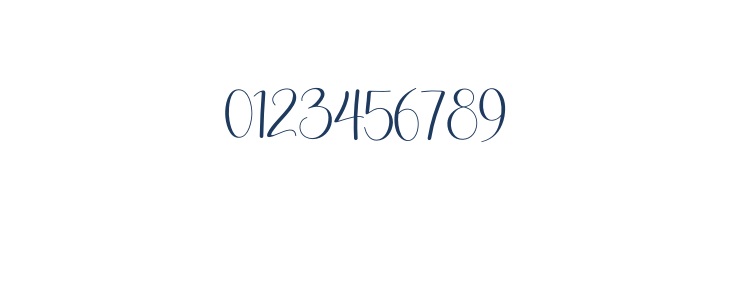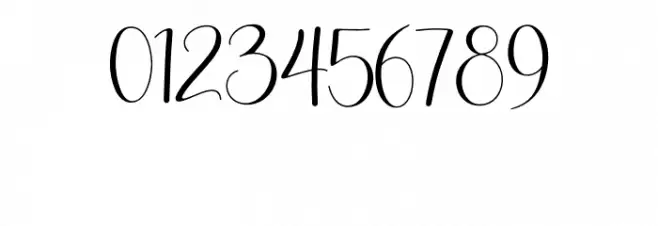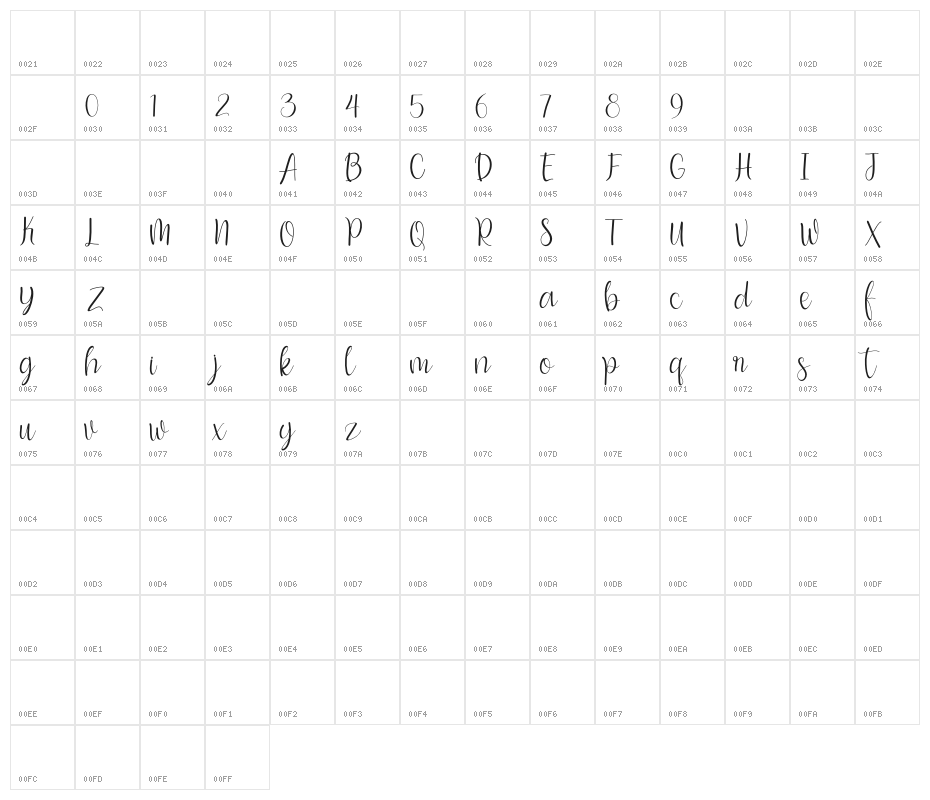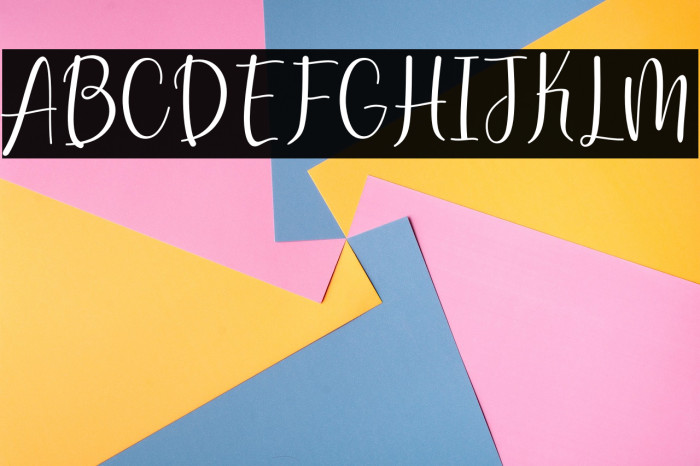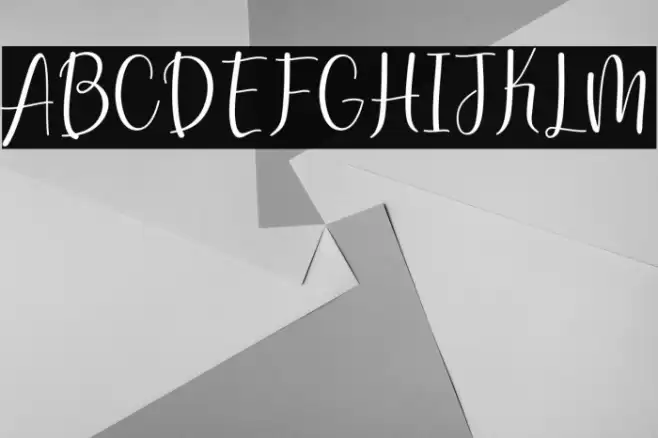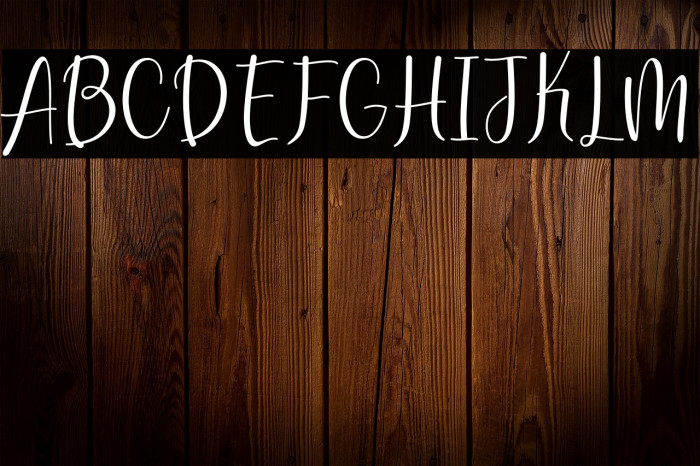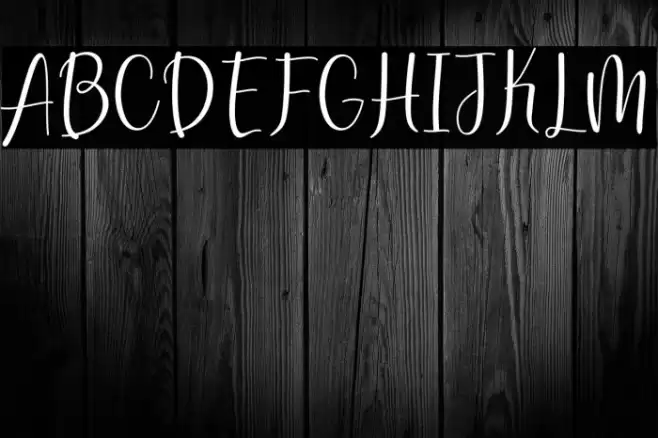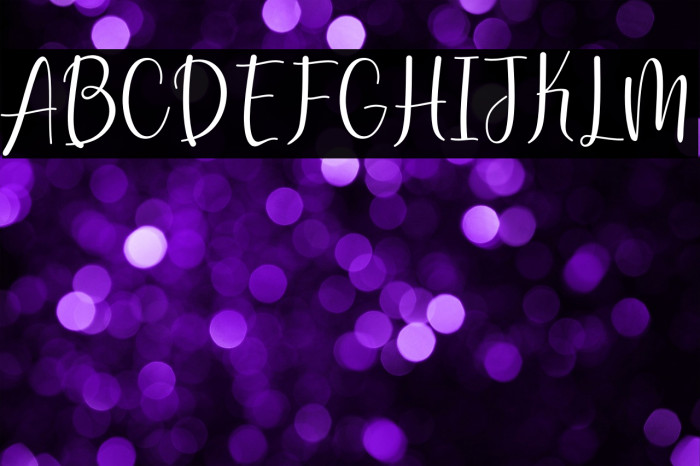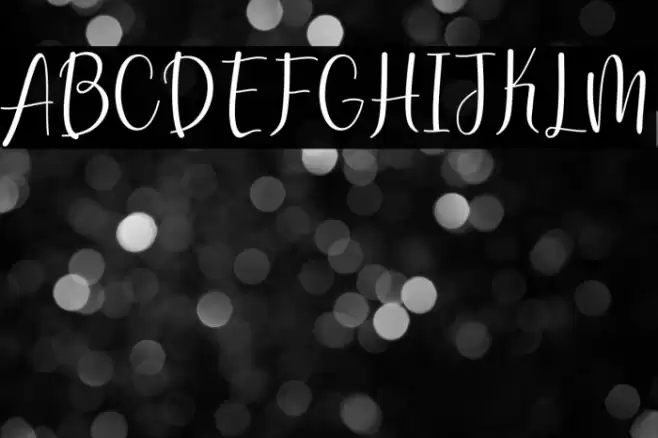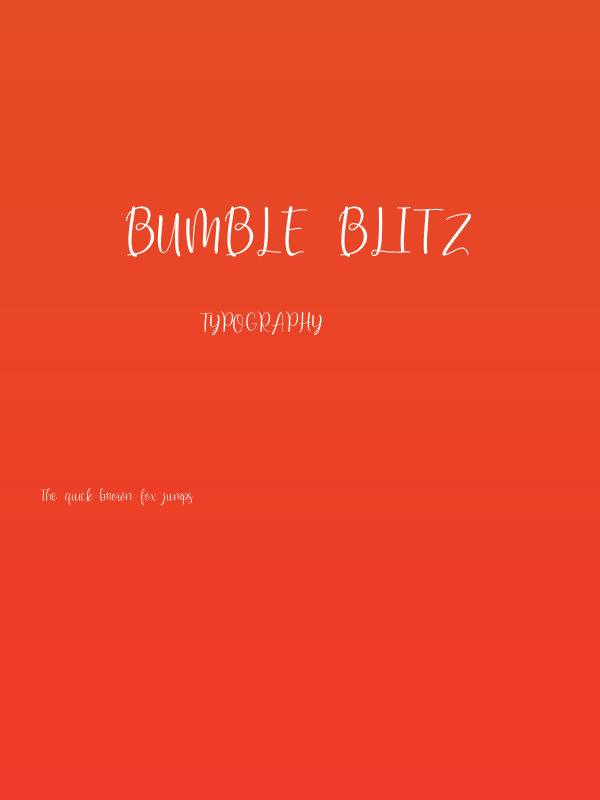
Bumble Blitz Font
Bumble Blitz Description
This font features a playful and elegant script style with a handwritten touch. The uppercase letters are tall and slightly slanted, giving a sense of movement and fluidity. The lowercase letters maintain a consistent flow, with some characters having unique loops and swirls that add to the font's charm. The numbers are designed to match the overall aesthetic, with a graceful and slightly whimsical appearance. The special characters complement the set, maintaining the same artistic flair. This font is perfect for projects that require a personal and creative touch, such as invitations, greeting cards, and branding materials.